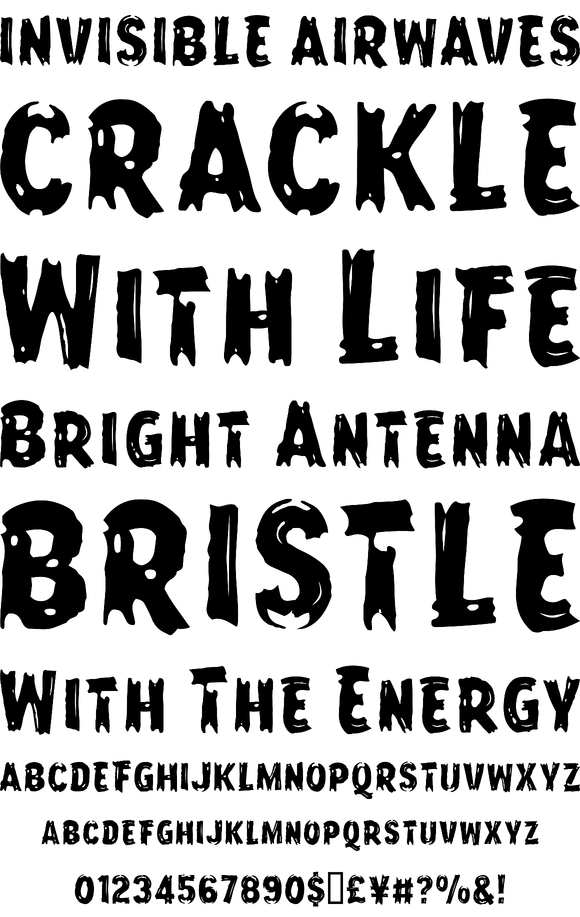
Based on a lettering style found on a grade B movie poster from the 1960s.
Each font in the Frontline™ family has a full character set of 232+ letterforms, with all characters designed in the style of the font.